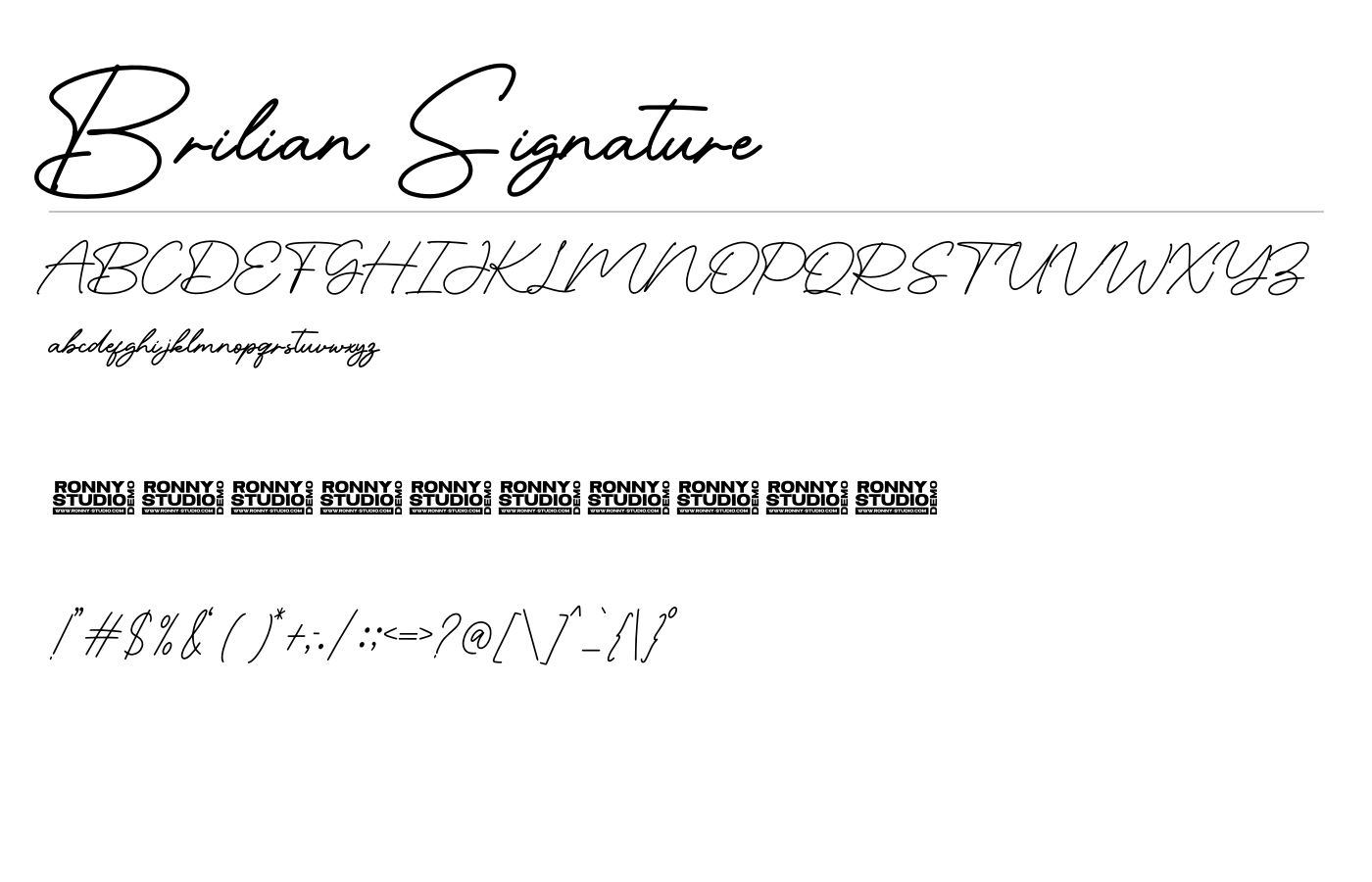
Brilian Signature is a delicate handwritten script font that exudes elegance and personal charm with its slender, flowing strokes and natural, slightly casual style. Its tall, narrow letterforms and smooth curves make it perfect for sophisticated branding, wedding invitations, and stylish logos where a refined and intimate feel is desired. This font works best in display use, adding a graceful, authentic touch to designs that seek warmth and individuality.
Brilian Signature Font
About Brilian Signature Font